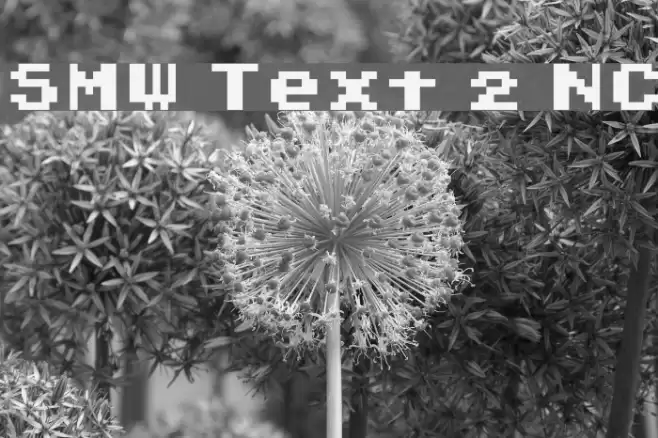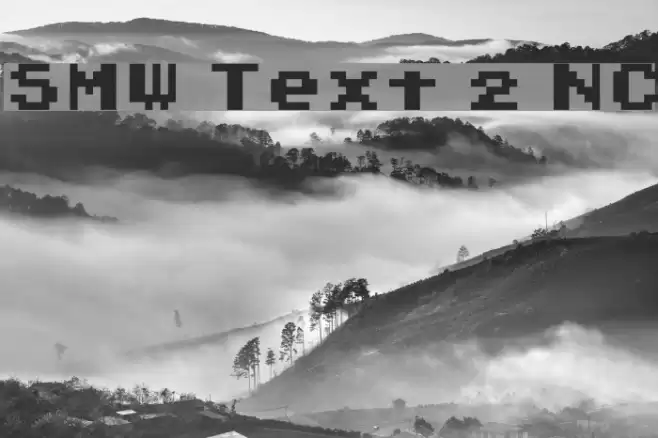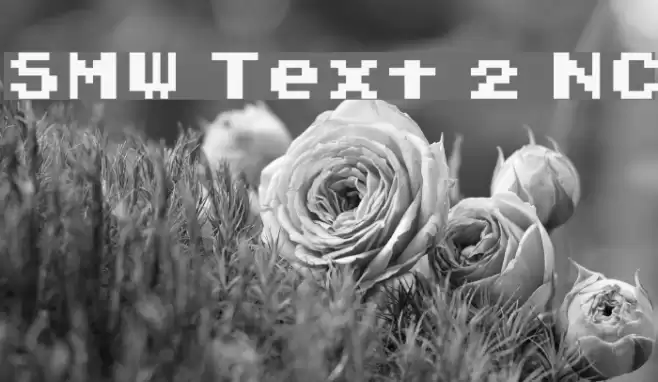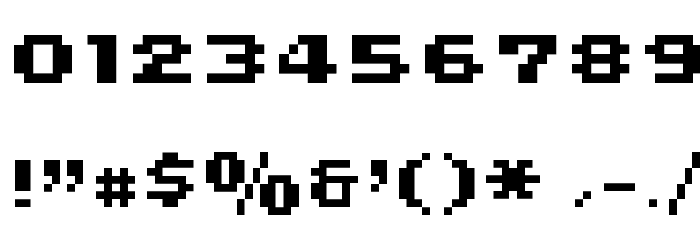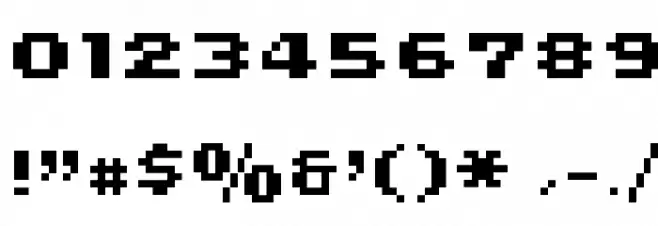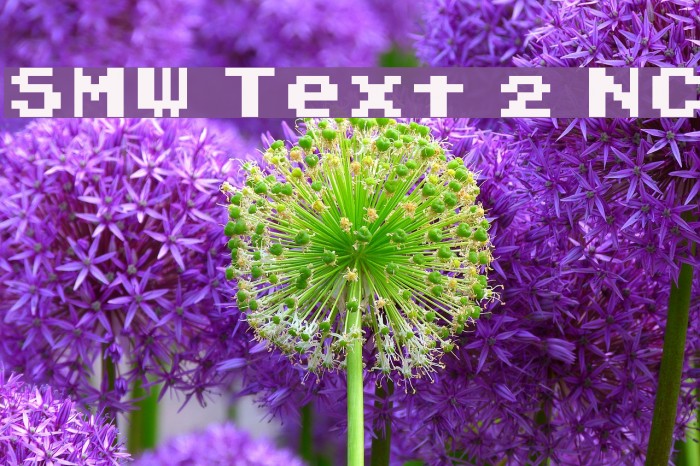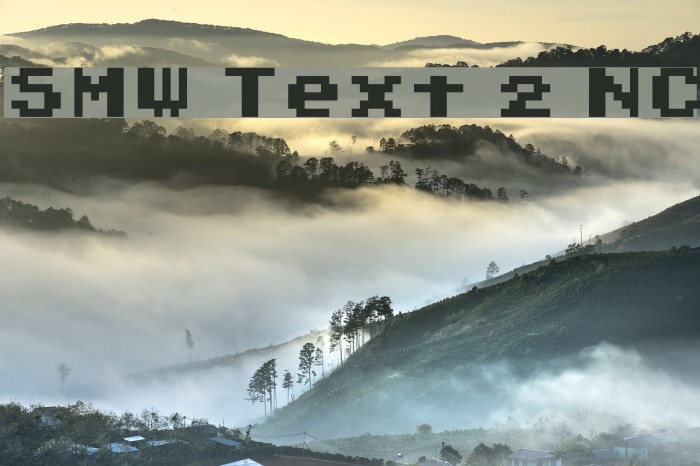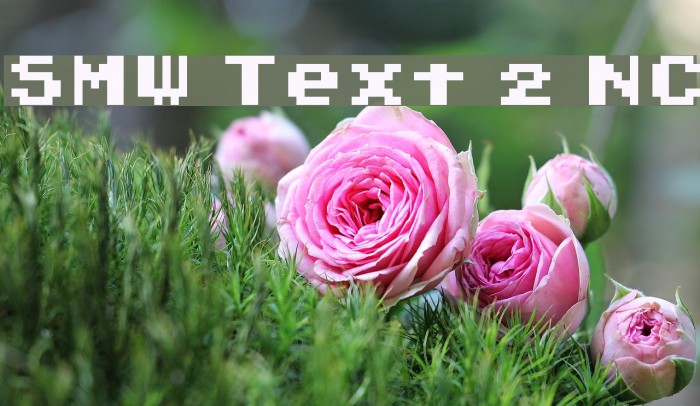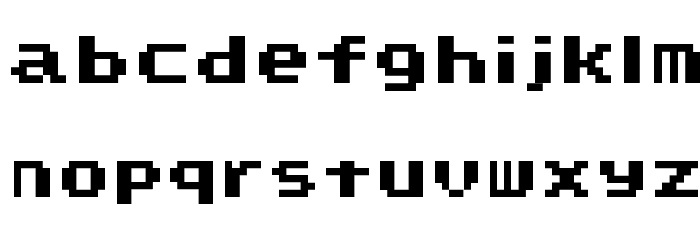
SMW Text 2 NC Font
SMW Text 2 NC Description
This font features a bold, pixelated design reminiscent of early digital and video game typography. Each character is constructed with a blocky, grid-like appearance, giving it a retro, nostalgic feel. The uppercase and lowercase letters maintain a consistent height and width, contributing to a uniform and structured look. The numerals and special characters follow the same pixelated style, ensuring cohesion across all elements. This font's simplicity and geometric form make it highly legible, even at smaller sizes, while its distinctive style adds a playful and vintage touch to any design.
A bold, pixelated font with a retro, digital aesthetic from Uncategorized fonts.
- Proposed Projects: Ideal for video game design, retro-themed posters, digital art, and any project seeking a nostalgic, 8-bit style.
- Overall Style: Vintage